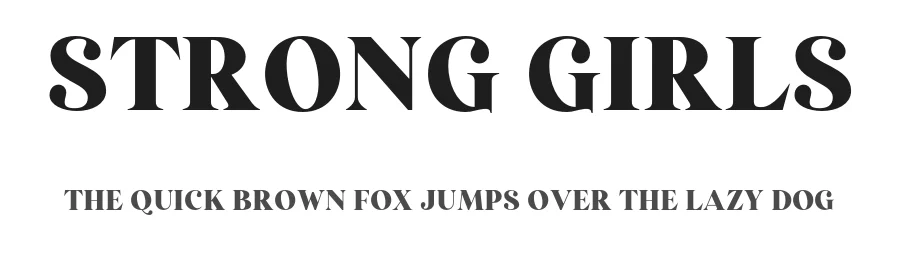
About Ziporah Font
Ziporah is a serif font designed by Graphicxell. It includes 219 glyphs, a regular weight, TTF (TrueType) format, and 213 languages. Ziporah is free to download; check the license details on this page before commercial use. Serif fonts like Ziporah work best for body text, editorial layouts, book covers, and classic branding.
Ziporah Font is a versatile serif font that works for both headings and body text. Pair it with a contrasting sans-serif or slab serif font to add visual interest and a clear distinction between titles and body copy.
Ziporah Font
by Graphicxell